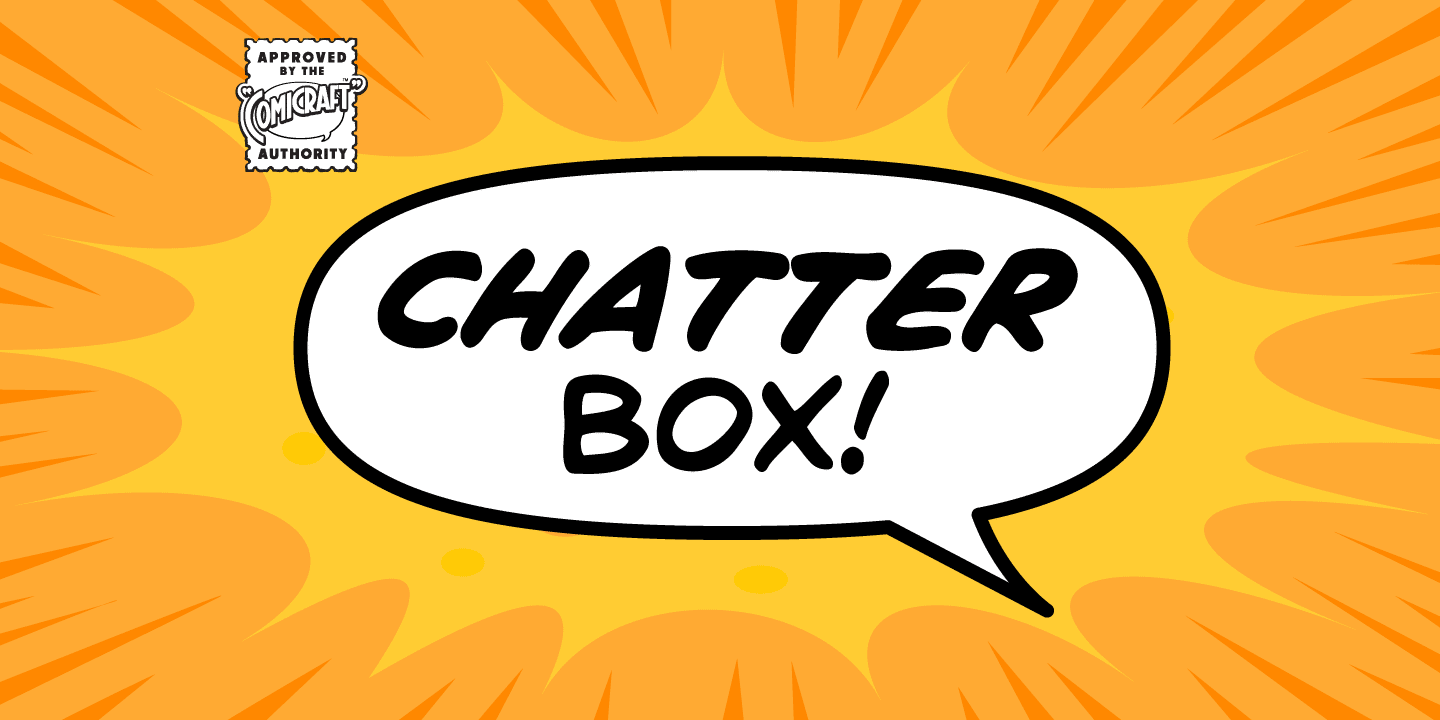
About the Chatterbox Font
About Chatterbox Font Family Have you seen that new font from Comicraft it’s lovely isn’t it all soft and spongy it fair warms the cockles of me heart Mrs Robinson at number forty three she has one she got it down at the store on the corner you know the Indian convenience open all night my Albert gets his Heineken down there late of an evening and you know what I saw all manner of strange people down there last week super heroes I think they were Blimey! Publisher: ComicraftFoundry: ComicraftDesign Owner: ComicraftMyFonts debut: Oct 26, 2005 Chatterbox